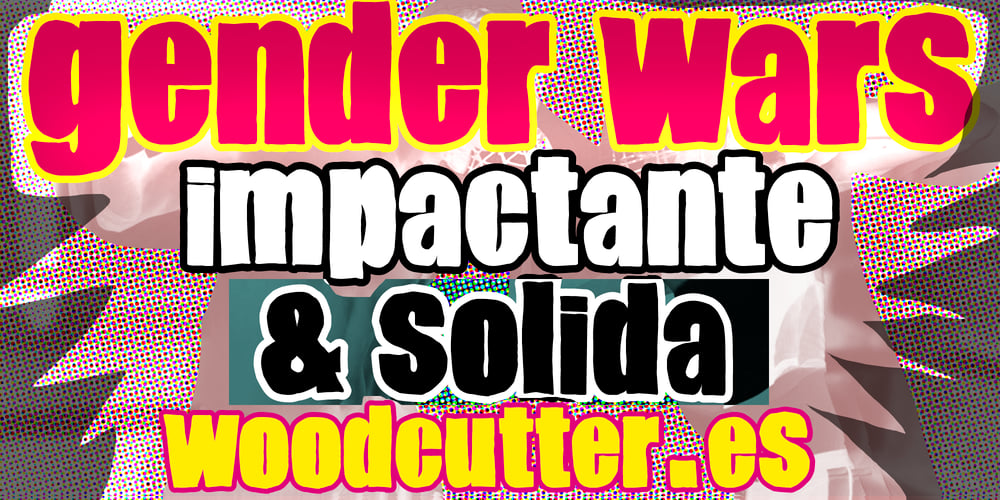
Gender Wars Font Family was designed by Jordi Manero and published by Woodcutter. Gender Wars contains 1 styles and family package options. “Gender Wars” is a lowercase typeface with accents, designed to stand out with its bold and modern appearance. Its imperfect contours give it a unique and authentic touch, while its solid and strong structure ensures excellent legibility. Ideal for projects seeking a balance between strength and individuality, “Gender Wars” adds character and dynamism to any design. Perfect for covers, posters, and any content requiring a strong and memorable visual impact, this typeface captures the essence of struggle and identity with style and effectiveness.